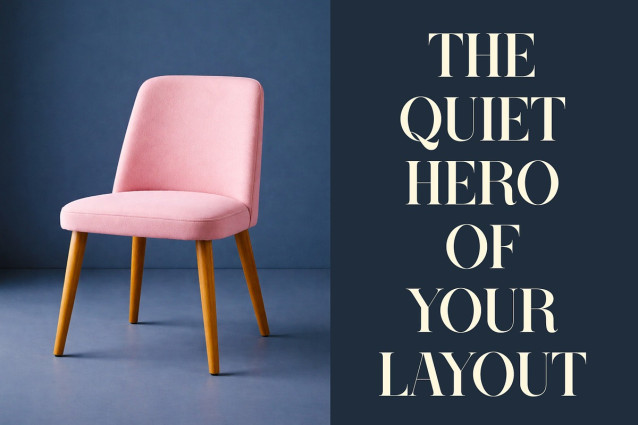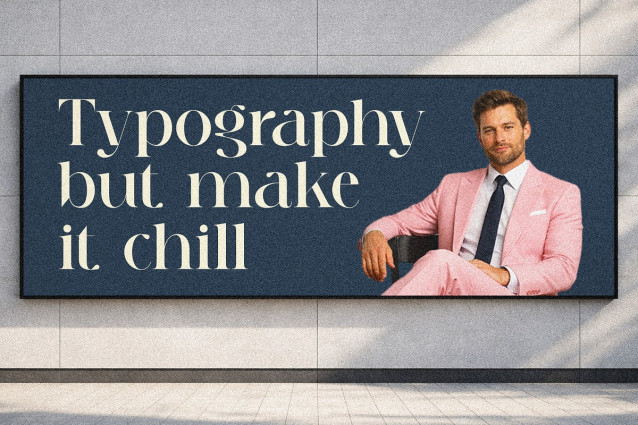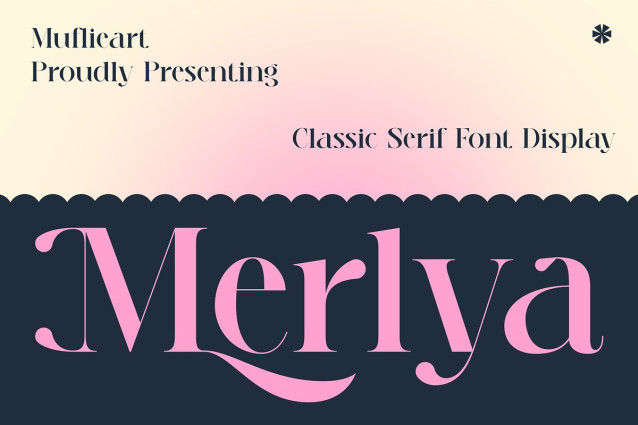
Merlya Font
Merlya Font the elegant, beautiful, and classic Serif. With its modern and minimalist look, Merlya brings a luxurious, classy, ​​and clean style to your projects such as websites, modern logos, brand identities, social media quotes, wedding stationery, magazines, and more!
Merlya features unique and classy capital letters A to Z and also comes with unique Alternates making Merlya a beautiful font that can be customized for various projects and jobs you want.
Merlya is perfect for: logos, brands, wedding invitations, business cards, greeting cards, posters, magazines, social media, agenda prints, and websites.